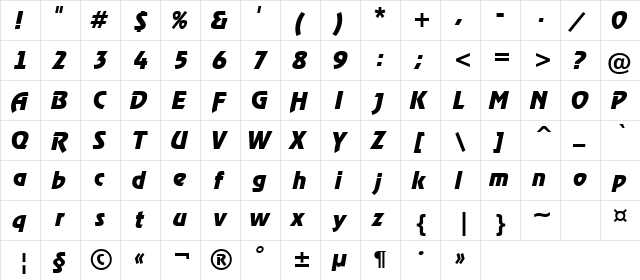
a_Rewinder BoldItalic
Design Context for a_Rewinder Typeface
a_Rewinder offers clean, dependable letterforms without strong stylistic allegiance, making it a practical choice for designers who need flexibility. Its italic angle brings a sense of urgency and motion to the letterforms. The heavy weight commands attention and anchors typographic hierarchies.